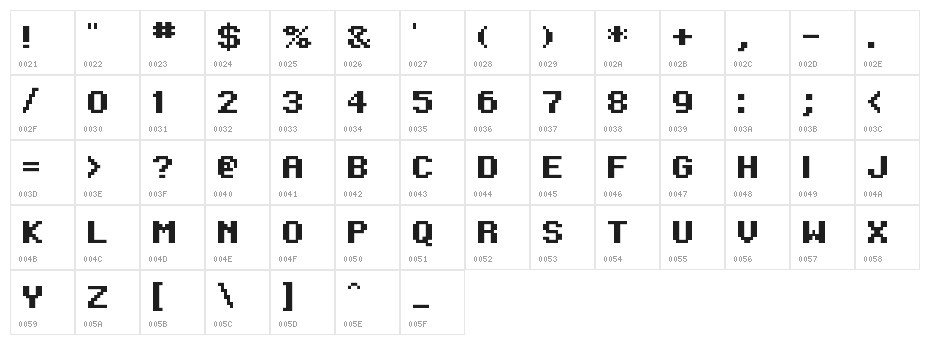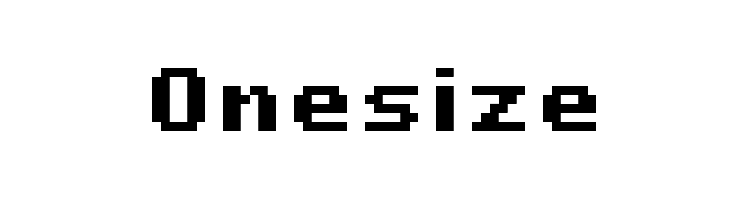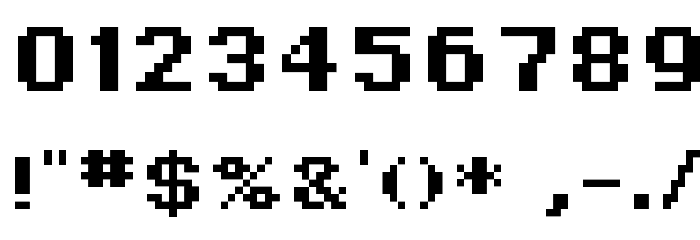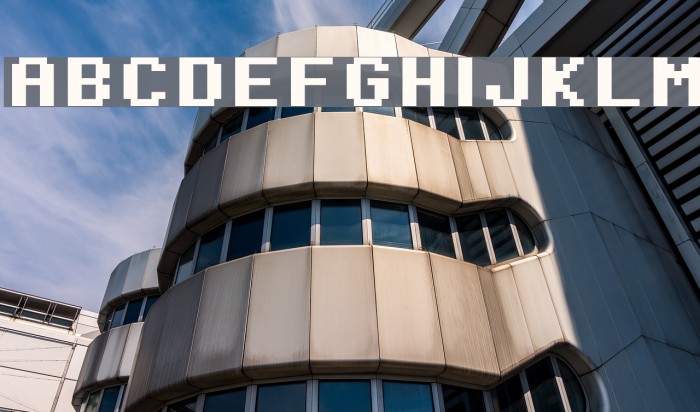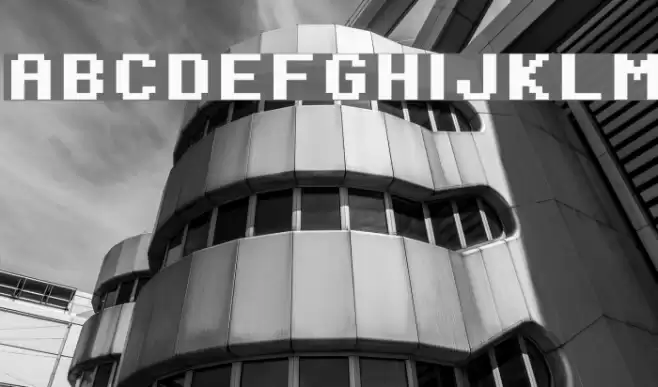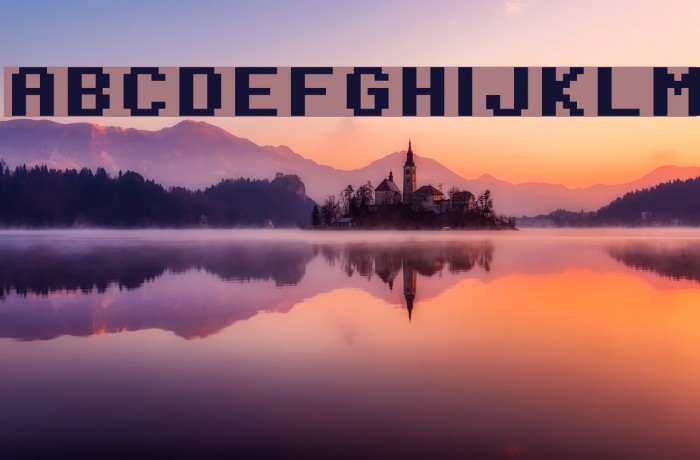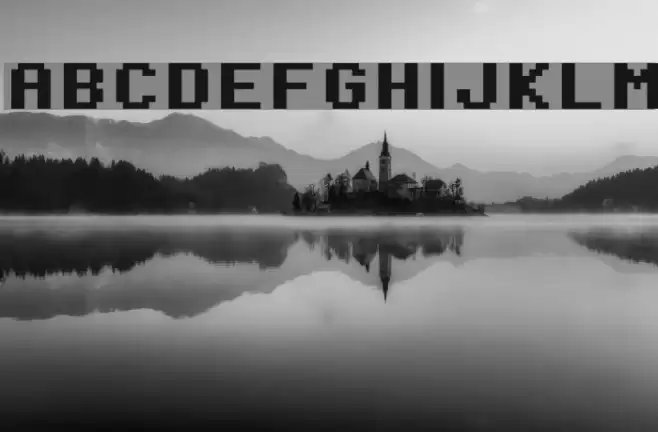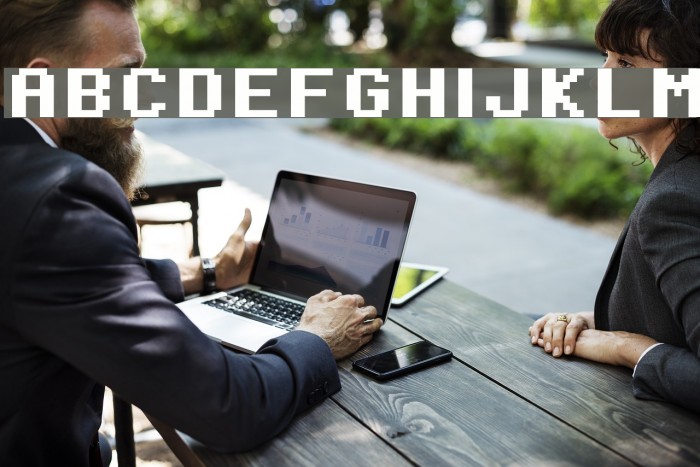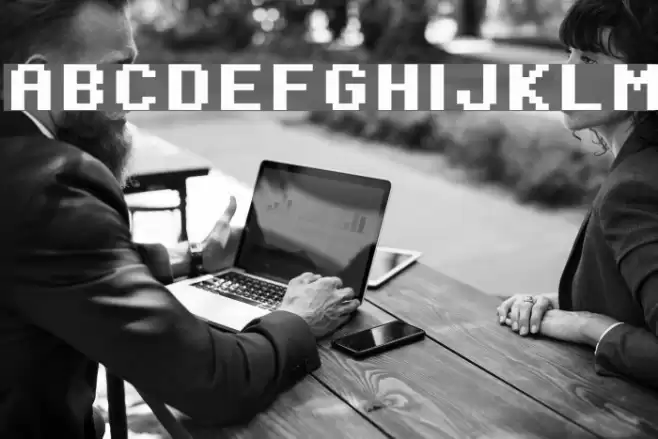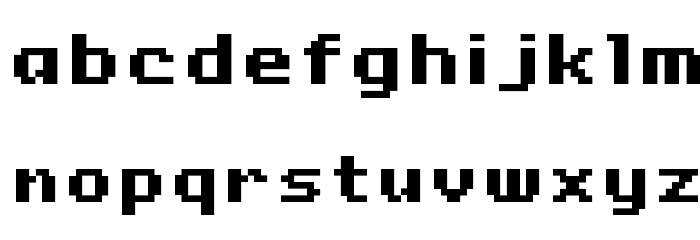
Onesize Font
Onesize Description
This font features a bold, pixelated design reminiscent of early digital displays and retro video games. Each character is constructed with a uniform grid-like pattern, giving it a blocky and geometric appearance. The uppercase and lowercase letters maintain a consistent style, with sharp edges and a lack of curves, enhancing its digital aesthetic. Numbers and special characters follow the same pixelated structure, ensuring a cohesive look across all glyphs. The font's simplicity and clarity make it highly legible, even at smaller sizes, while its nostalgic feel adds a playful and vintage touch to any design.
| Overall Style | Vintage |
| Use Case | Logos, Headlines, Digital Art |
| Proposed Projects | Ideal for retro-themed designs, video game graphics, digital art projects, and any creative work that seeks to evoke nostalgia for early computing. |